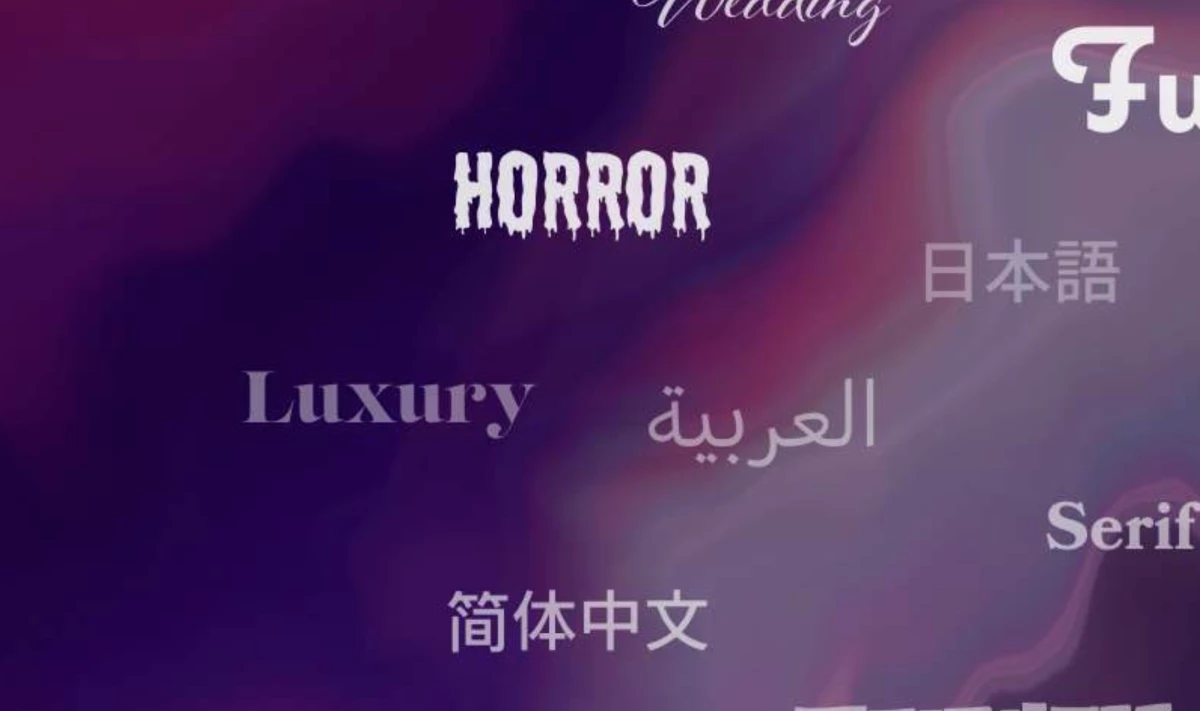
Key Takeaways:
- Adobe just added over 1,500 fonts, including Helvetica, Arial, and Times New Roman, to its Fonts library.
- The update comes at no extra cost for Creative Cloud users and supports more global languages than ever before.
- The move prioritizes design consistency across platforms and gives creatives more flexibility in their workflows.
Adobe Fonts has rolled out its biggest update in five years, adding over 1,500 new typefaces to its collection.
It brings in some of the most widely used fonts in design history — like Helvetica, Gotham, Avenir, Arial, and Times New Roman.
The update makes these instantly available to all Creative Cloud subscribers.
The goal? Making design workflows smoother and more consistent for creative professionals, without requiring any extra downloads or fees.
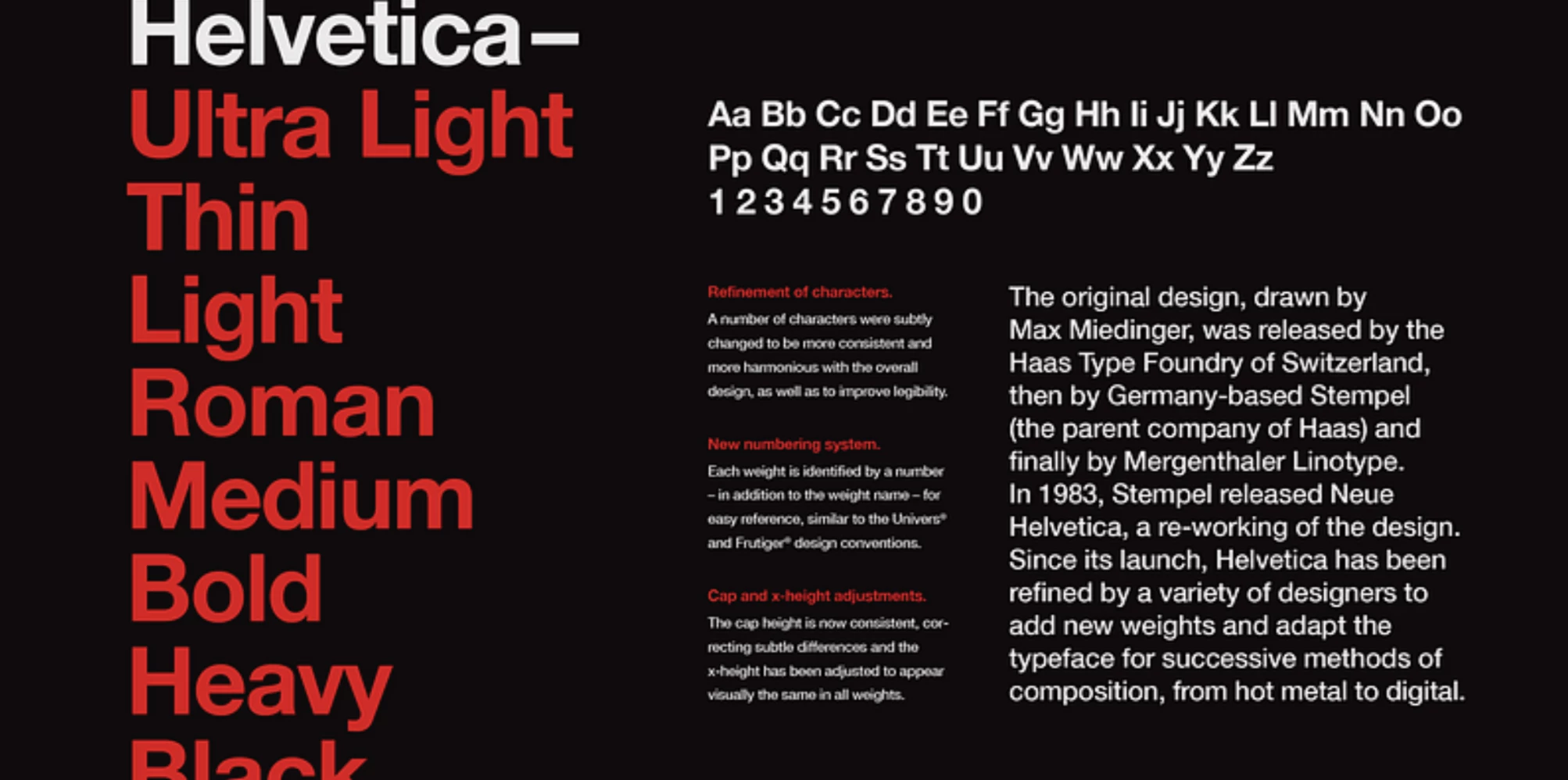
The expansion also enhances Adobe Fonts' global language support, with additional typefaces for:
- Arabic
- Chinese
- Japanese
- Korean
- Thai
- Hindi
With a lot more global fonts and Creative Cloud integration, the update doesn’t just add variety but also levels up creative workflows.
Adobe Fonts is serving a game-changer for design agencies looking to keep client branding sharp and on point across every platform.
Fonts That Speak Brand Fluent
With the latest update, designers can now access staple fonts like:
Helvetica – A branding and editorial classic
Gotham – A modern favorite in digital and print
Times New Roman & Arial – Go-to choices for professional documents
Proxima Nova – Now with expanded language support
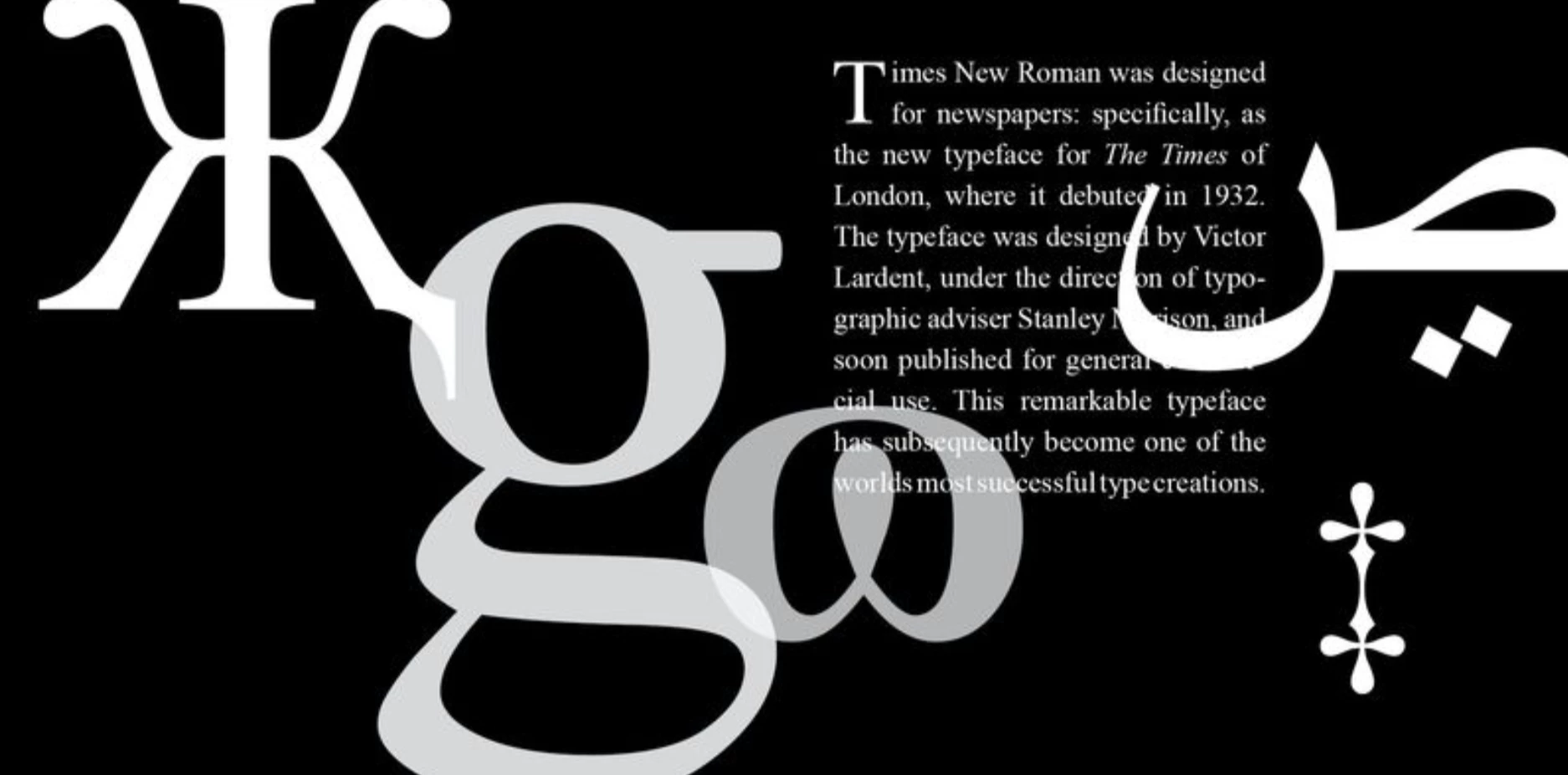
All fonts integrate directly into Creative Cloud applications like Illustrator, Photoshop, InDesign, and Adobe Express.
This makes it easier than ever to keep branding and layout consistent across projects and teams.
With over 30,000 fonts now available in the Adobe Fonts library, creators have a powerful toolkit at their fingertips — ready for any format, any screen, and any audience.